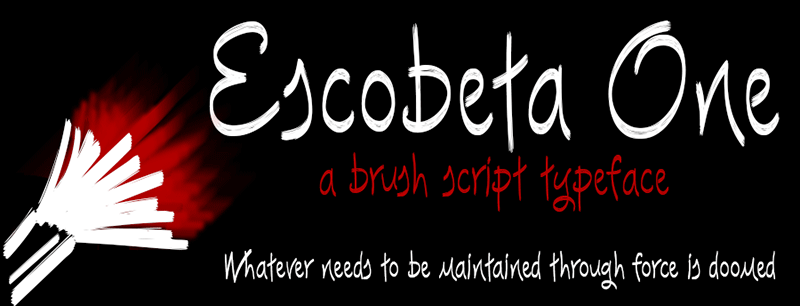
Font name: | Escobeta One |
Escobeta One is a disconnected handwritten typography made with brush, is perfect for designing posters, catchy headlines, commemorations, invitations or editorial design. ============= • Free for Personal Use Only. • Commercial License at: http://defharo.com/fonts/escobeta-one-font/ |